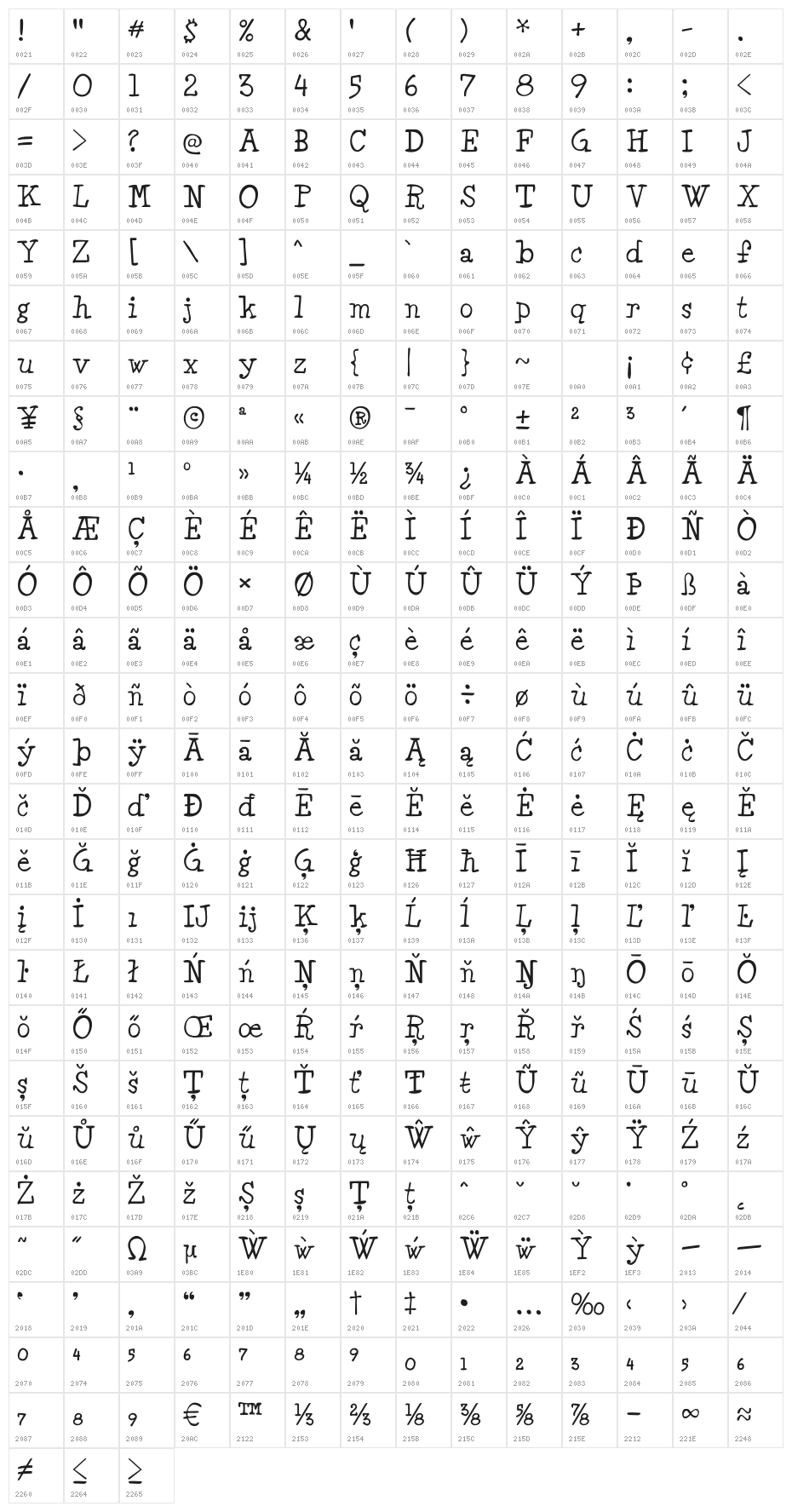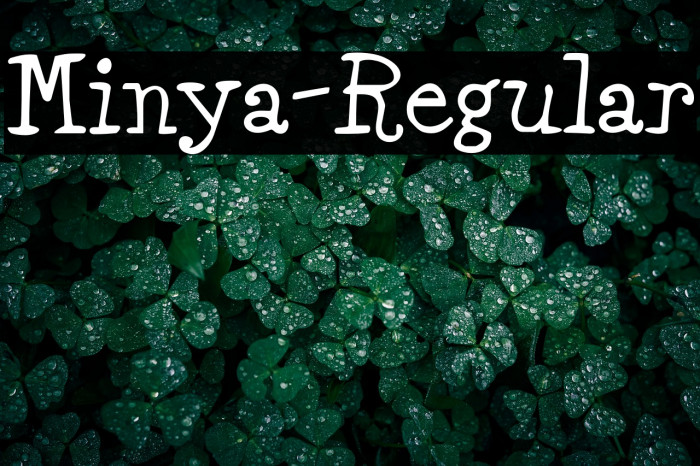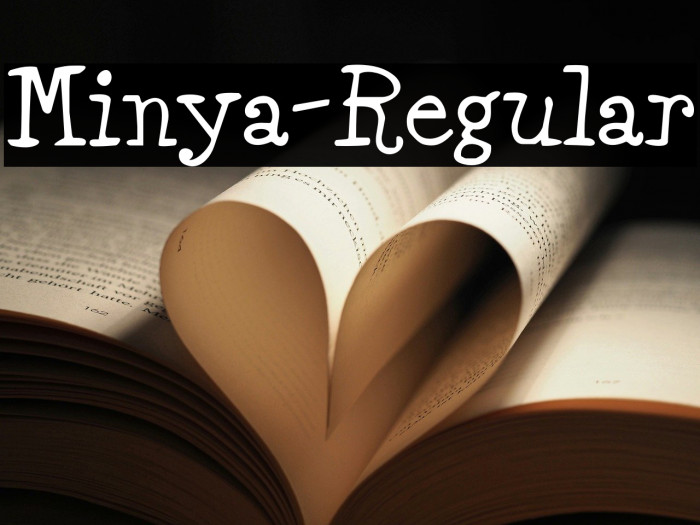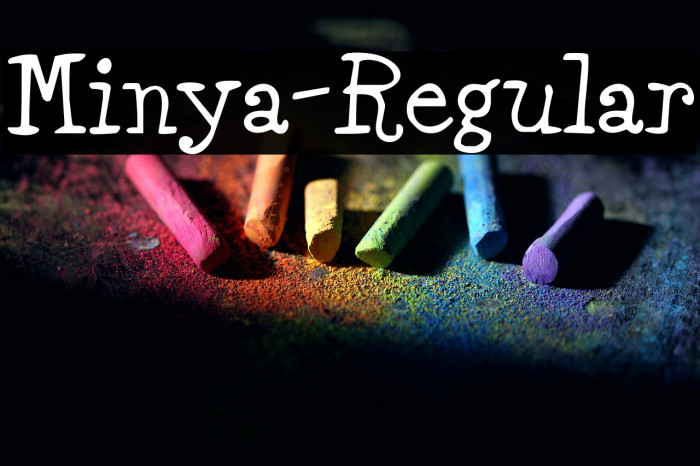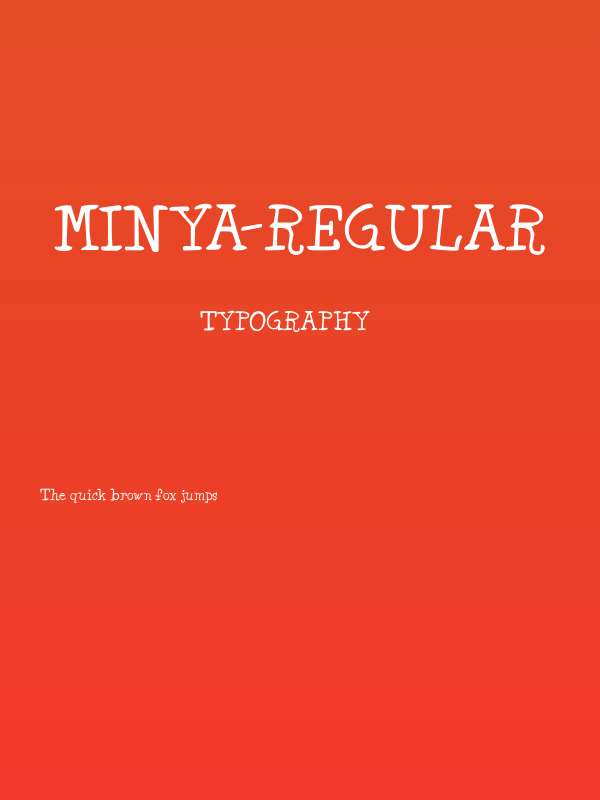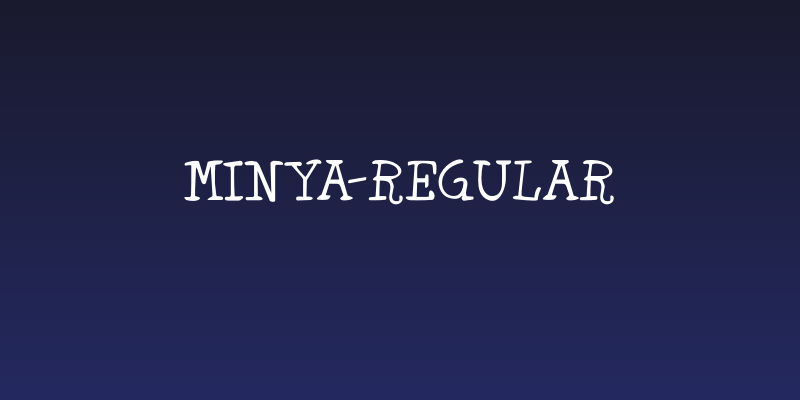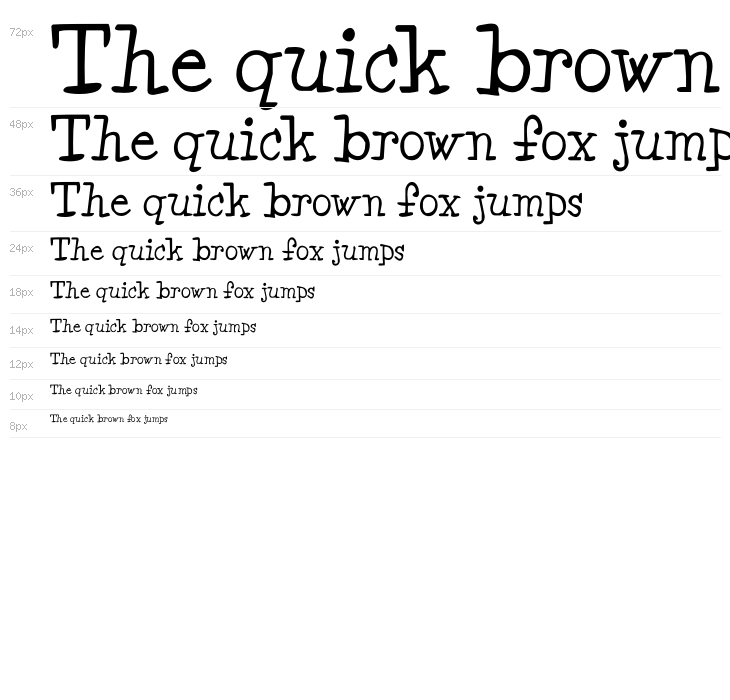
Minya-Regular Font
Minya-Regular Description
This font features a playful and whimsical style with a hand-drawn appearance. The characters are slightly irregular, giving it a casual and friendly feel. The strokes are consistent in weight, providing a uniform look across all characters. The uppercase letters are bold and prominent, while the lowercase letters maintain a similar width, creating a harmonious balance. The numerals are clear and easy to read, and the special characters are distinct, adding to the font's versatility. This font is ideal for projects that require a personal touch or a fun, informal vibe.
Overall StyleCasual
Use CaseHeadlines, Logos, Informal Text
Proposed ProjectsGreat for children's books, greeting cards, playful branding, and informal invitations.